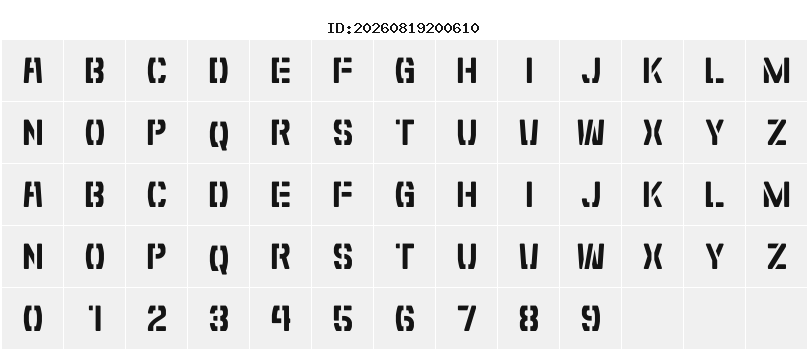
Shibuya Zero Preview
About Shibuya Zero.ttf
Shibuya Zero.ttf is a modern, elegant sans-serif font designed for ultimate readability and visual harmony. Perfect for branding, headlines, web design, and print materials.